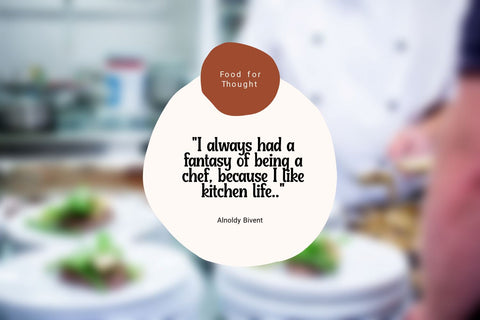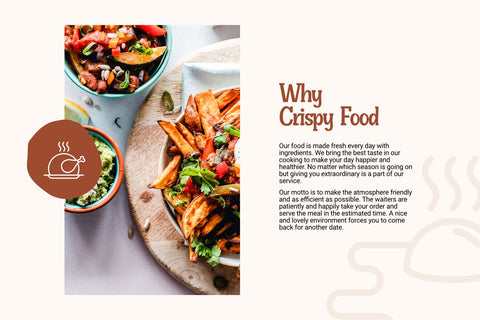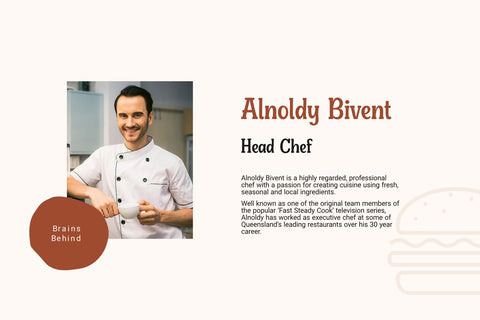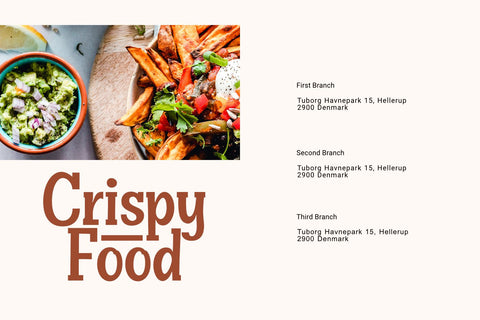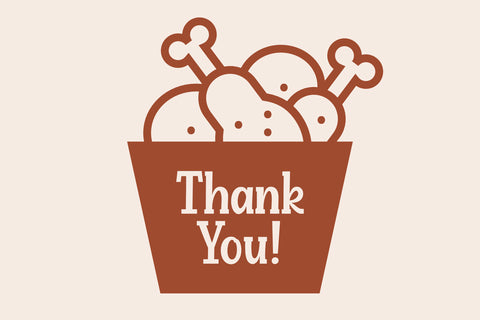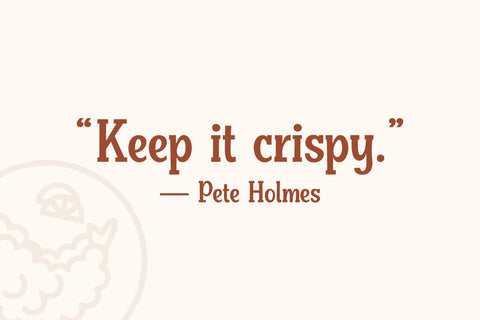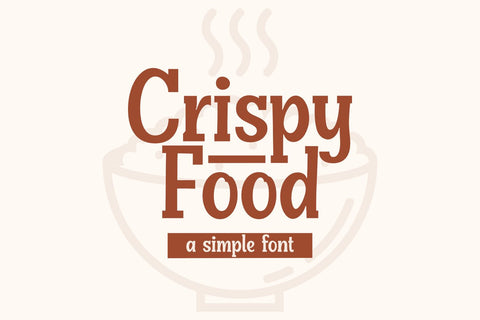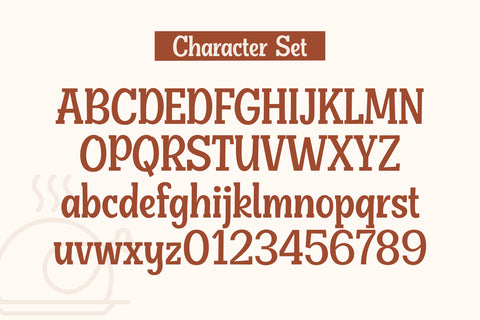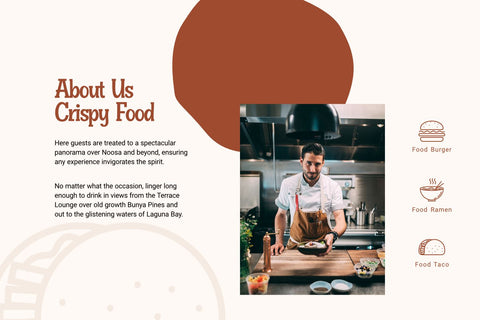
Crispy Food - a Simple Font
Crispy Food is a cool, vintage styled and adaptable display font. This original look will appeal to a wide range of crafty ideas, from letterheads and titles, to stationery.